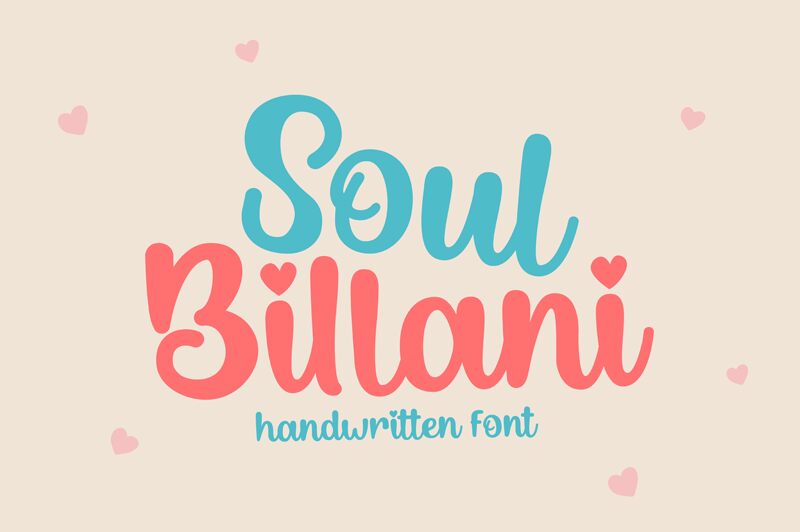
Soul Billani
Soul Billani is a bold display font designed by Eknoji Studio with a cute, cartoonish style that features a handwritten touch. This font is perfect for various creative projects such as children's books, greeting cards, social media posts, and branding materials for playful or vibrant brands. The bold weight of the font makes it stand out and adds emphasis to important words or phrases. With its unique design and eye-catching appeal, Soul Billani is sure to leave a lasting impression on your audience. Start incorporating this fun and playful typeface into your next project and watch it come to life!